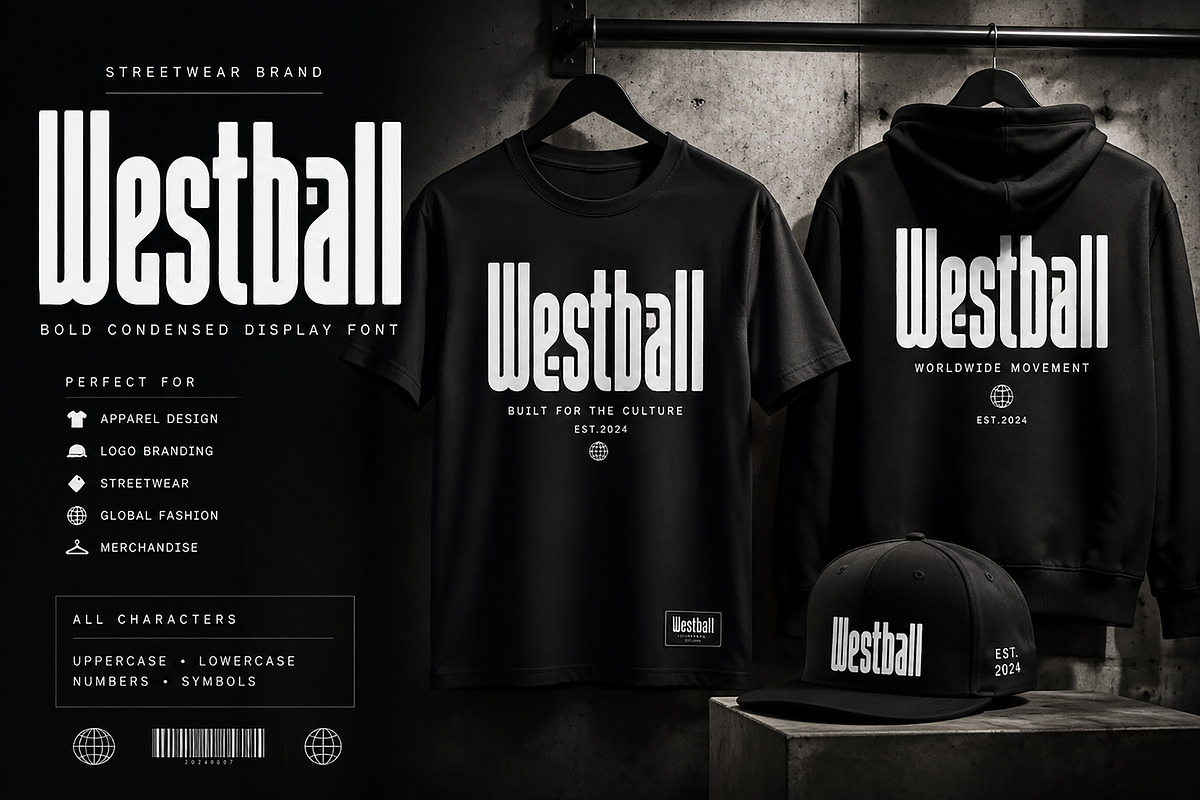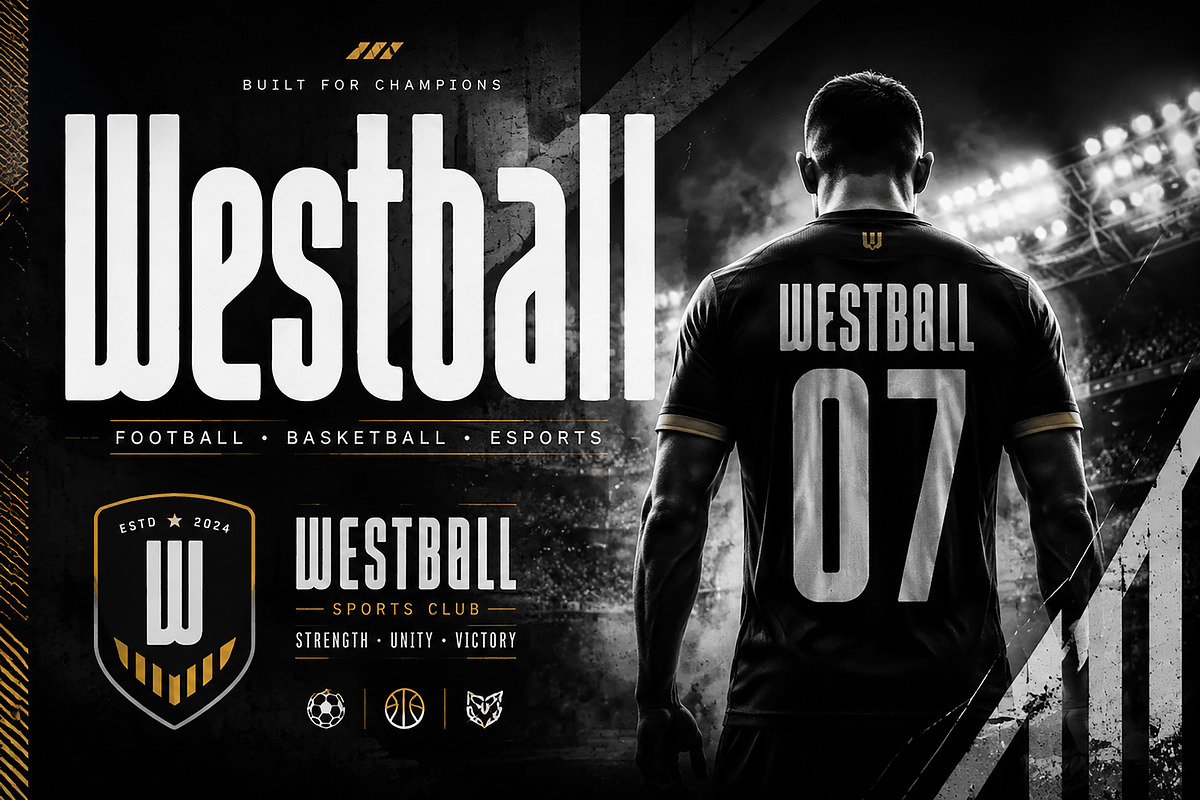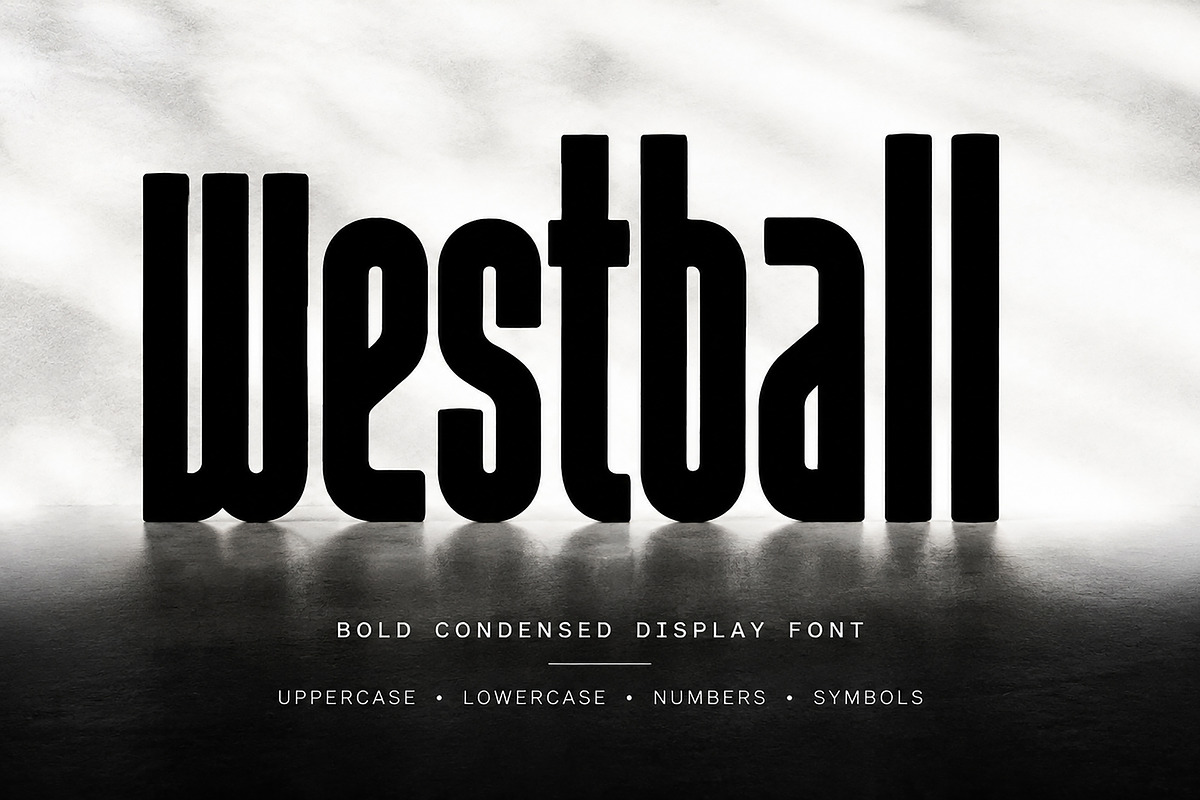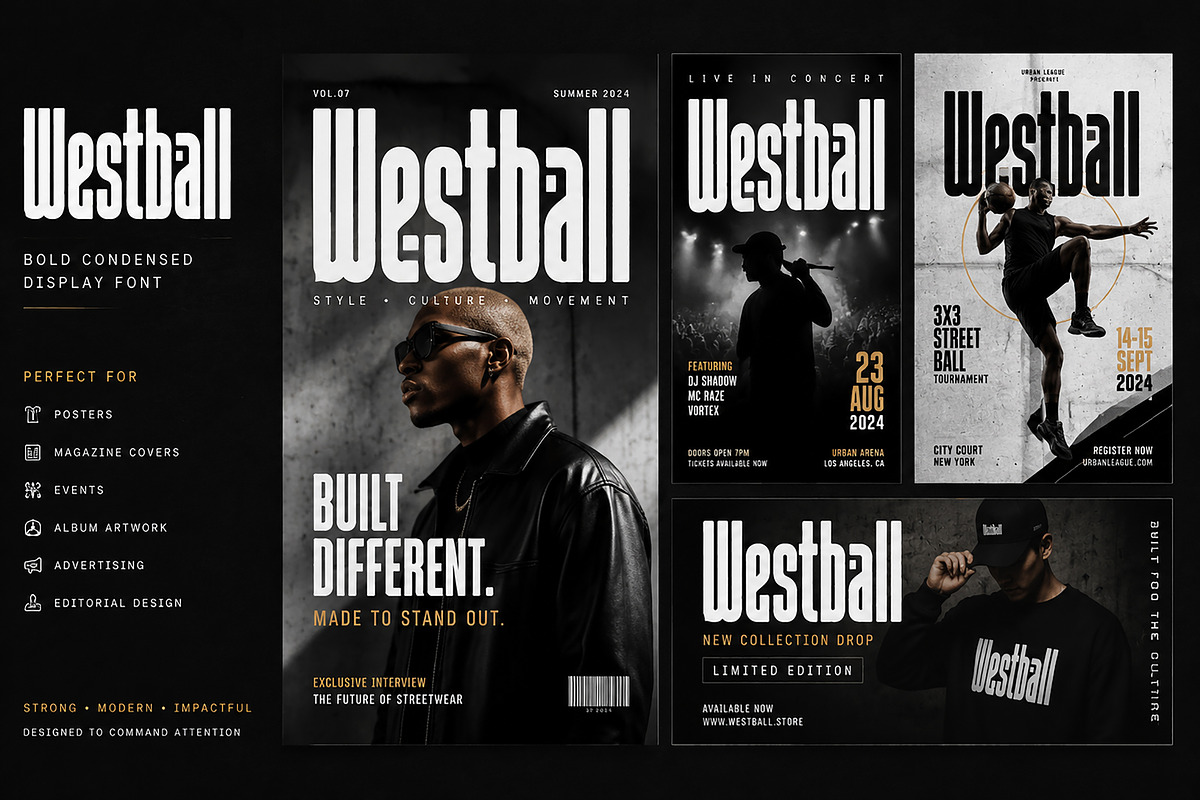
Westball
Westball – Bold Condensed Display Font
Westball is a powerful bold condensed display font designed for modern branding, sports identity, streetwear, posters, headlines, and high-impact visual designs. With its strong vertical structure and compact letterforms, Westball creates a confident and energetic look that instantly grabs attention.
Perfect for designers looking to create sports logos, team branding, apparel designs, magazine covers, event posters, advertising campaigns, esports graphics, and urban-style projects.
Its bold presence makes it ideal for both digital and print applications where strong typography is required.
✔ Bold Condensed Display Style
✔ Strong & Modern Letter Structure
✔ Perfect for Branding & Logo Design
✔ Suitable for Sports & Streetwear Projects
✔ Uppercase & Lowercase Letters
✔ Numbers & Symbols Included
✔ Clean Professional Font Design
• Sports Branding
• Football & Basketball Team Identity
• Esports Logo Design
• Streetwear Clothing Brands
• Fashion Labels
• Poster Design
• Magazine Headlines
• Event Graphics
• Advertisement Design
• Packaging & Merchandise
Bring strength, style, and impact to your designs with Westball — a bold condensed font built for modern creative projects.